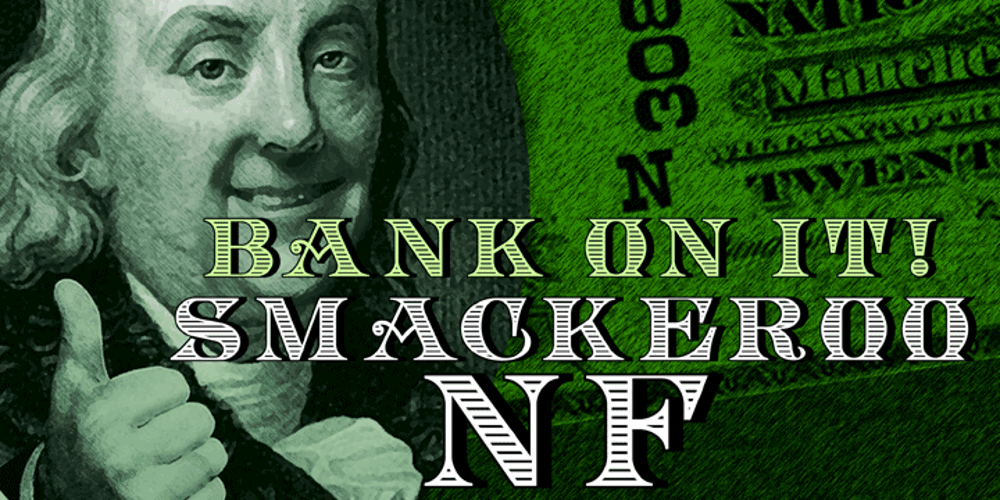
Smackeroo NF
Smackeroo NF font
Smackeroo NF Font Family was designed by Nick Curtis and published by Nick’s Fonts. Smackeroo NF contains 1 styles and family package options. The model for this monocase typeface was issued in the early 1900s by Barnhart Brothers & Spindler with the rather prosaic name of Steelplate. A hundred years later, it still retains its currency (ouch!), which is how it got its name. Complete Adobe character set except for superior numbers. The Opentype version of this font supports Unicode 1250 (Central European) languages, as well as Unicode 1252 (Latin) languages.